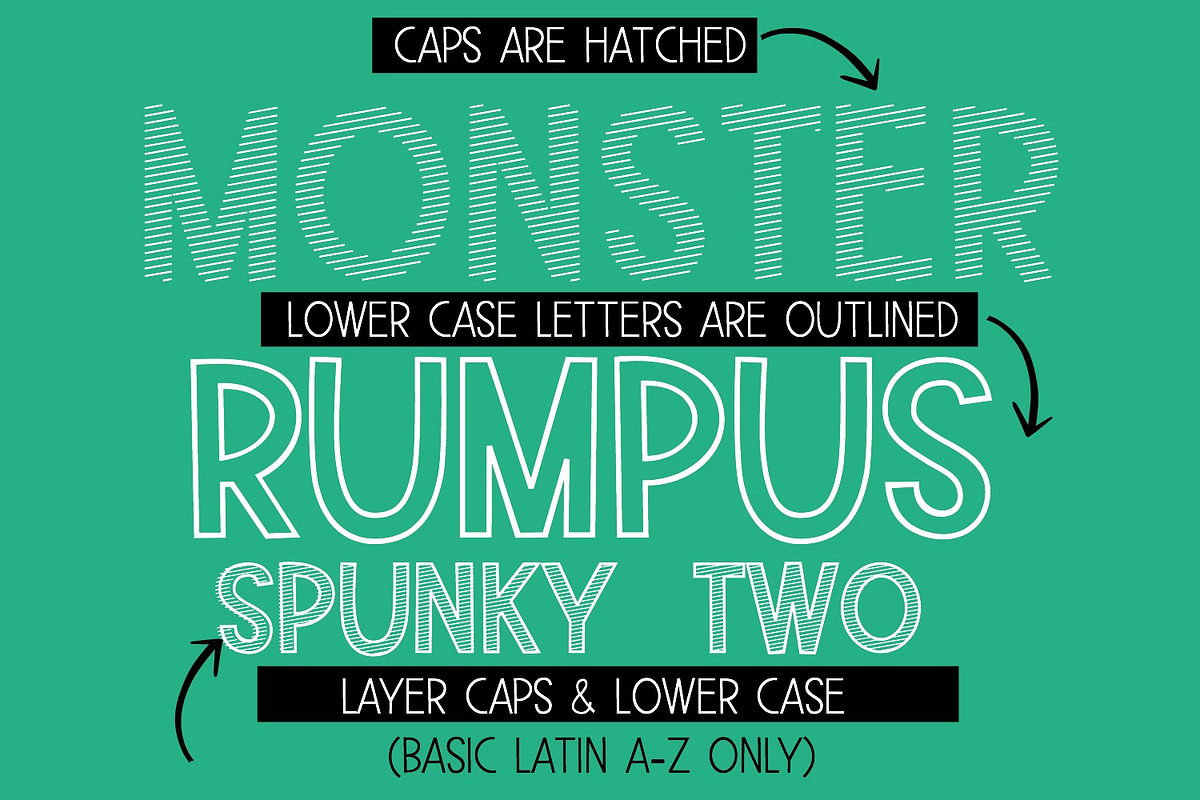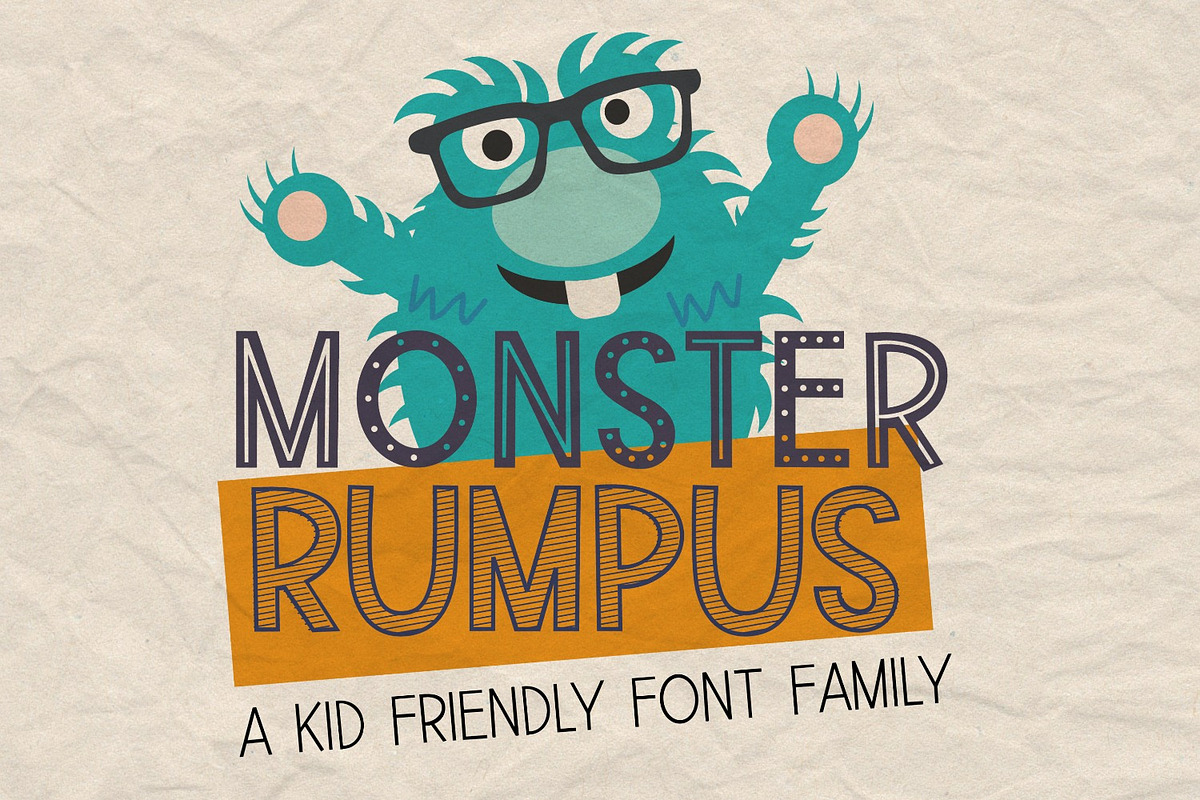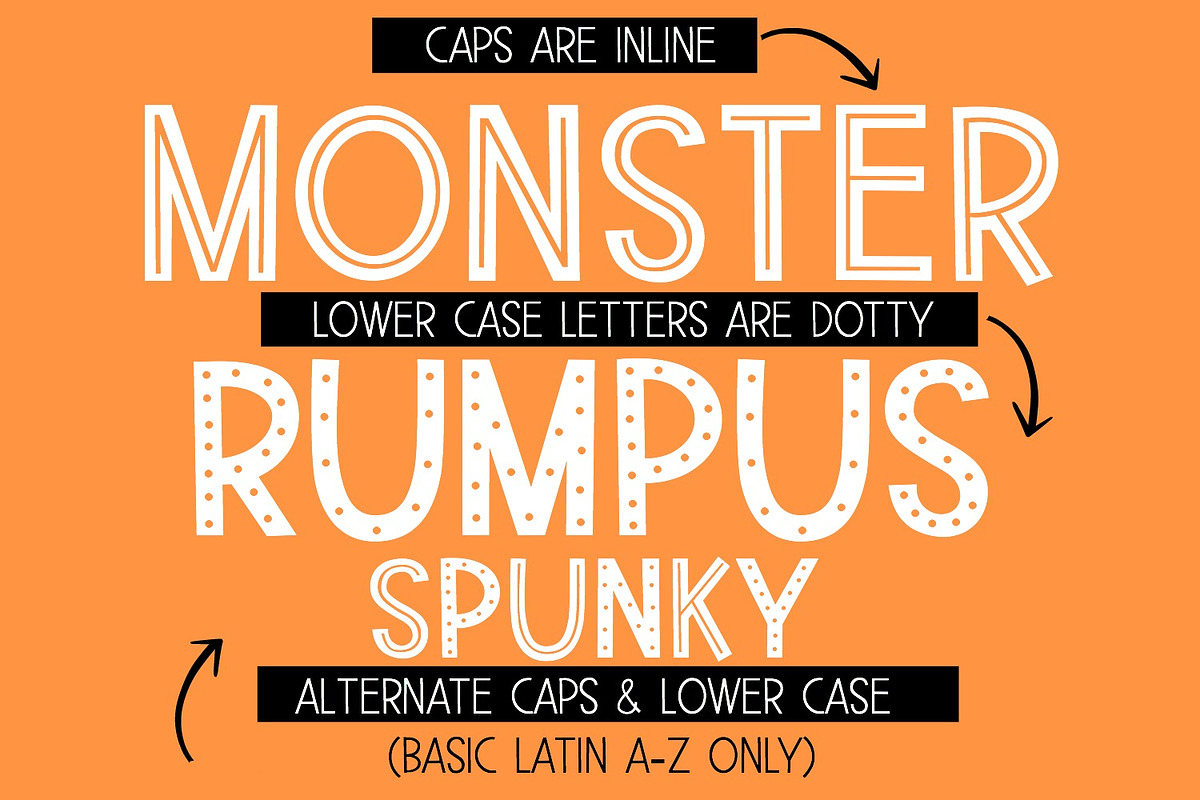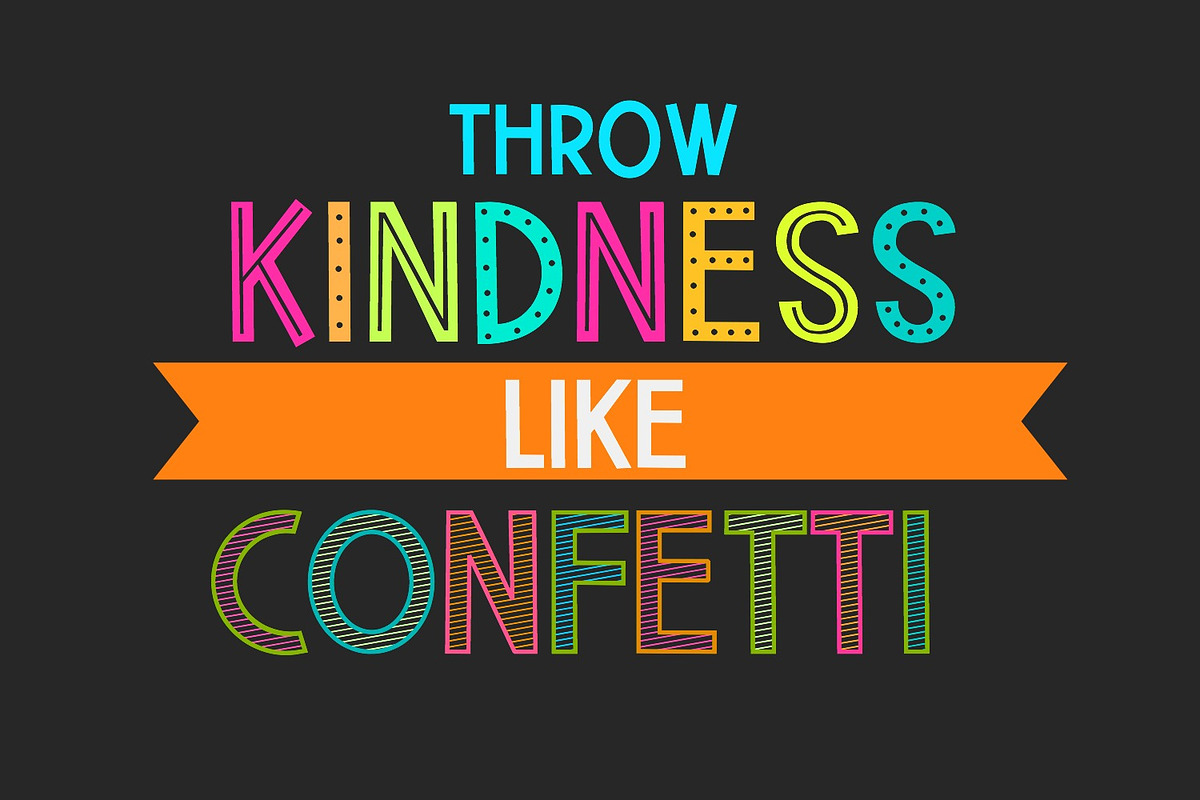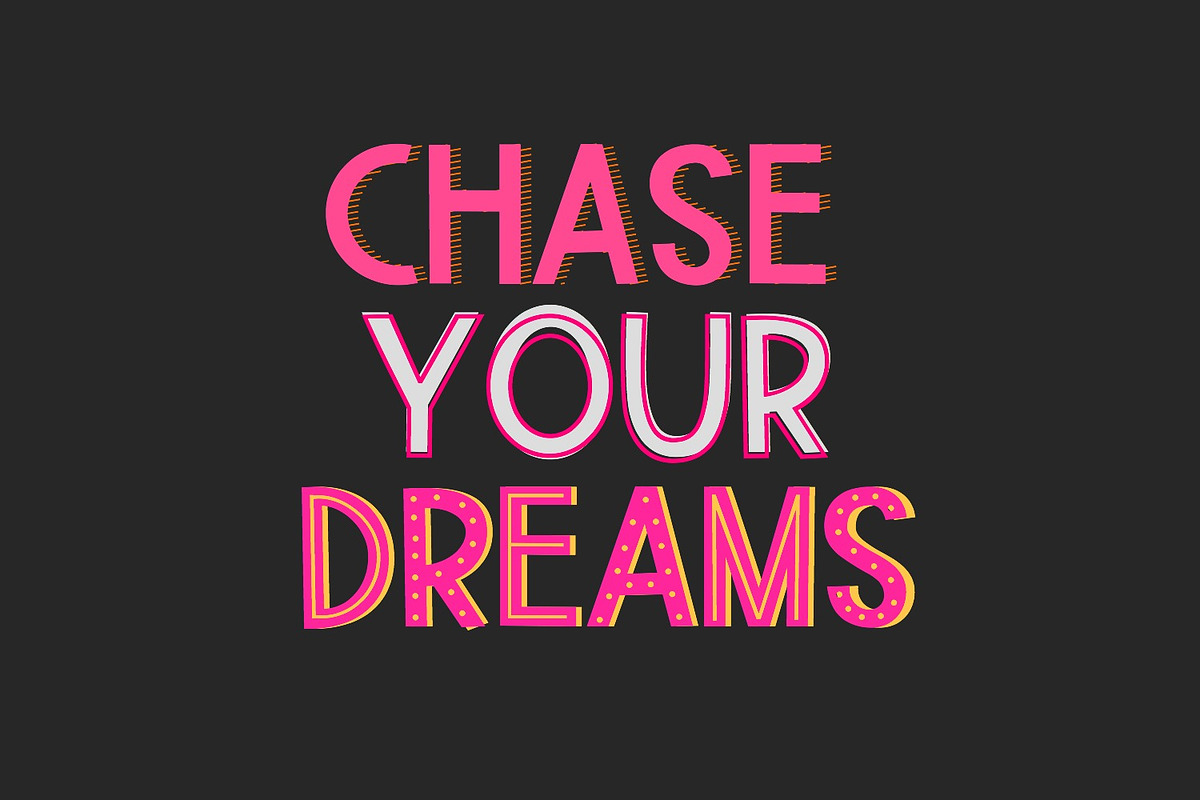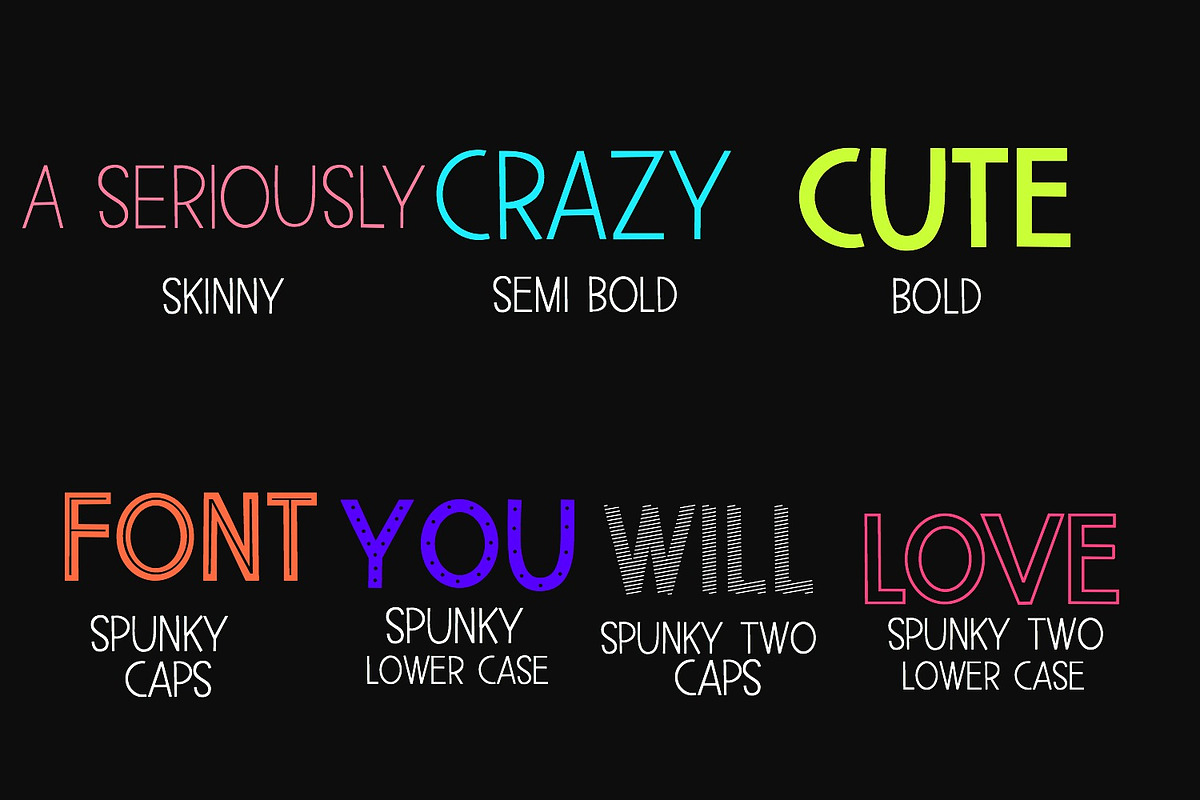
New!! Monster Rumpus Font
Introducing Monster Rumpus! This font includes 3 weights (skinny, semibold, and bold) and 5 styles! Monster Rumpus is a perfect font choice for kids designs, teachers, crafters, etc!
The fun, spunky letters are in Monster Rumpus Spunky & Monster Rumpus Spunky Two. The spunky font files only include the basic Latin alphabet set (A-Z).
Monster Rumpus Caps is an all caps inline font Monster Rumpus lower case is an all caps dotty font
Monster Rumpus Two Caps is hatched, intended for layering Monster Rumpus Two lower case is outlined, for layering or solo
- The combinations you can make with these font styles are endless!